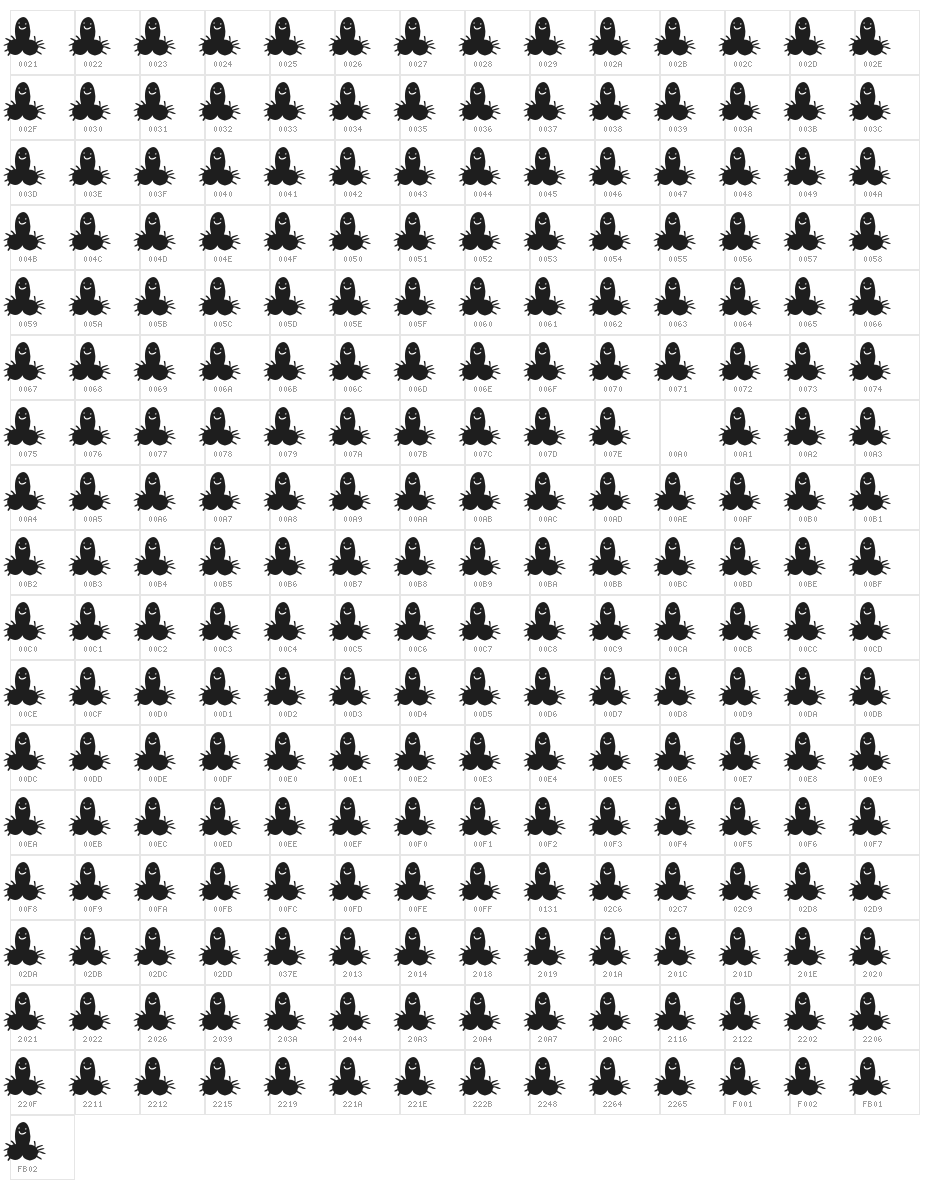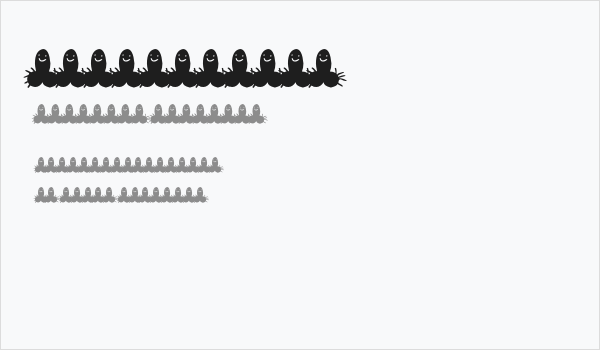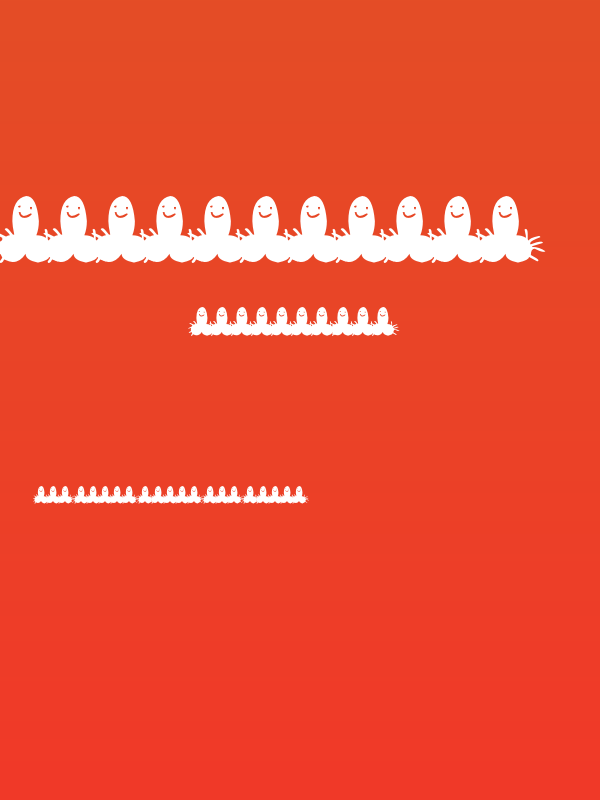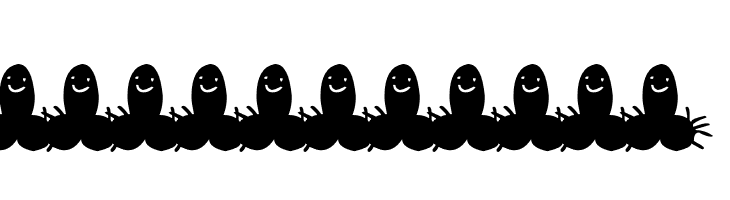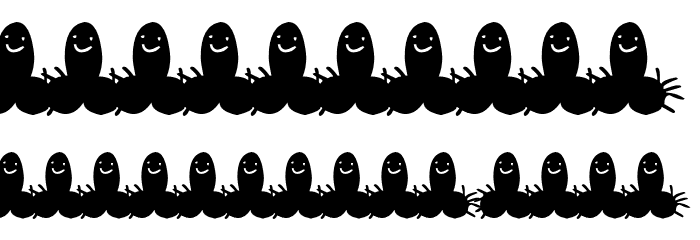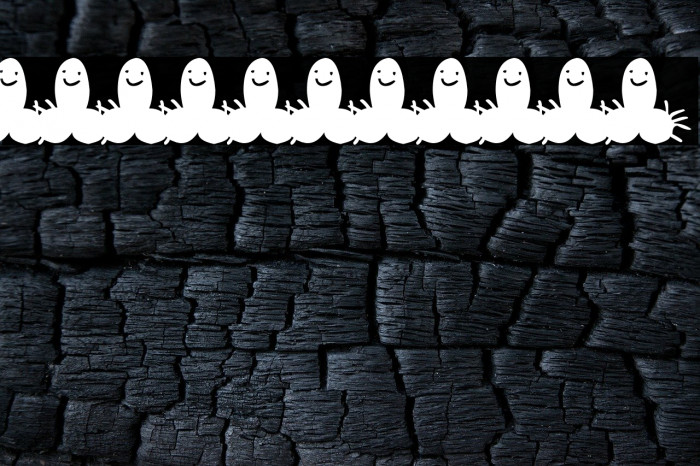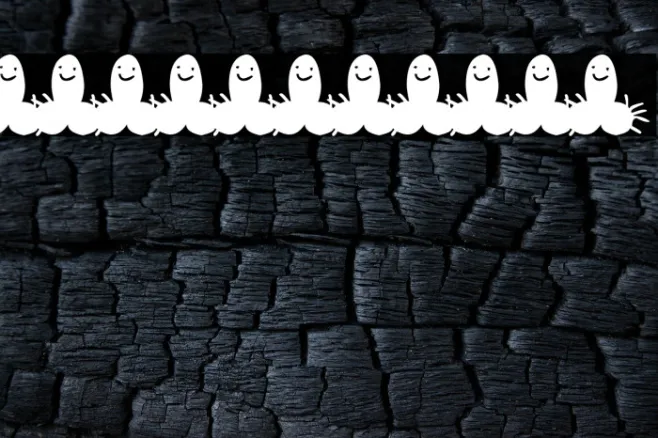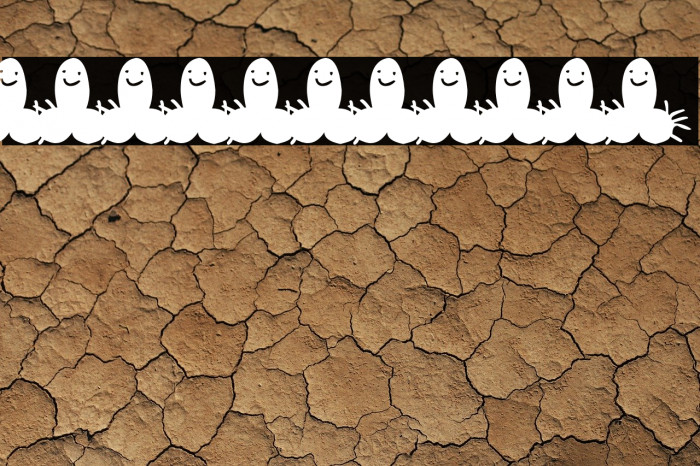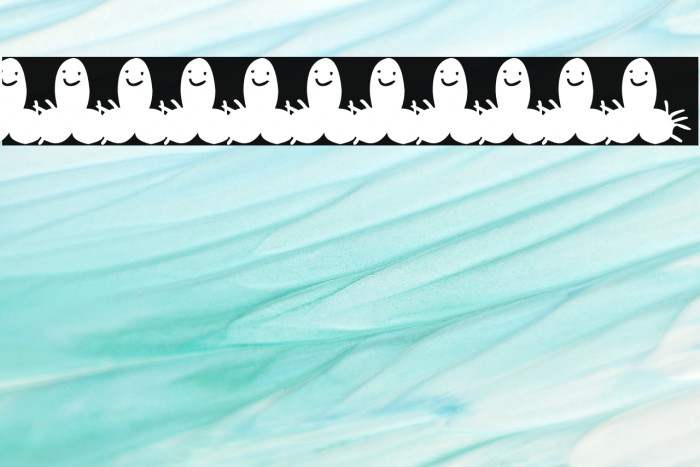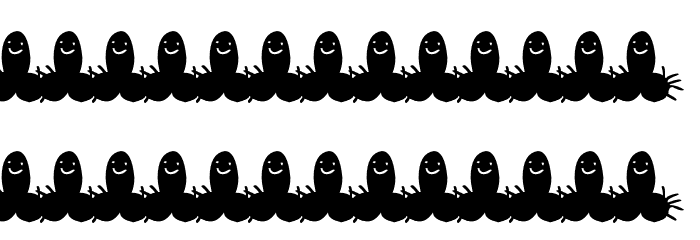
A playful, decorative pattern font featuring repeating silhouettes of smiling cartoon creatures with rounded bodies and small limbs, arranged in horizontal rows.
| Overall Style | Decorative, Playful |
| Use Case | Borders, Decorative elements, Themed graphics |
| Proposed Projects | Children’s books, party invitations, playful borders, scrapbooking, educational materials. |